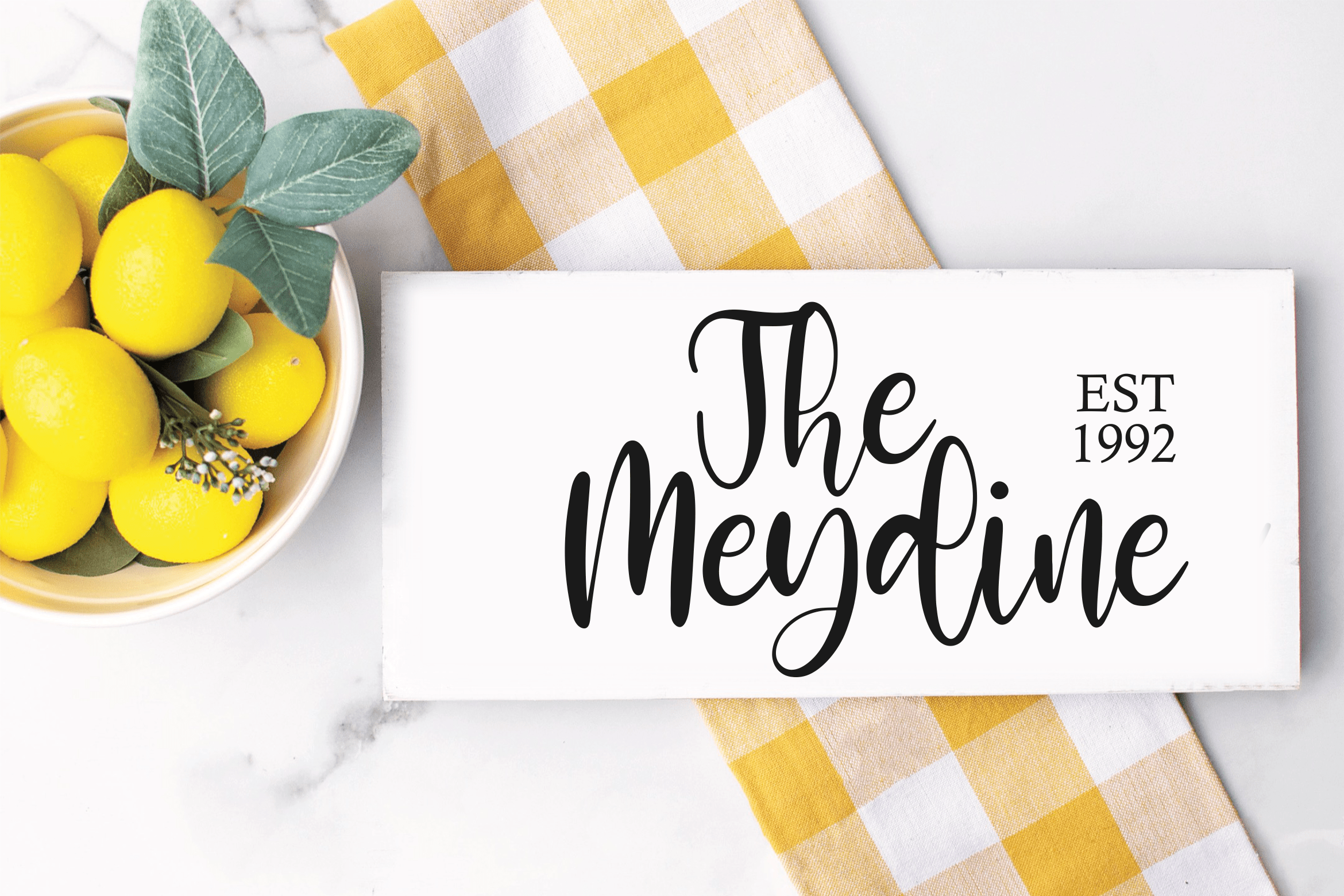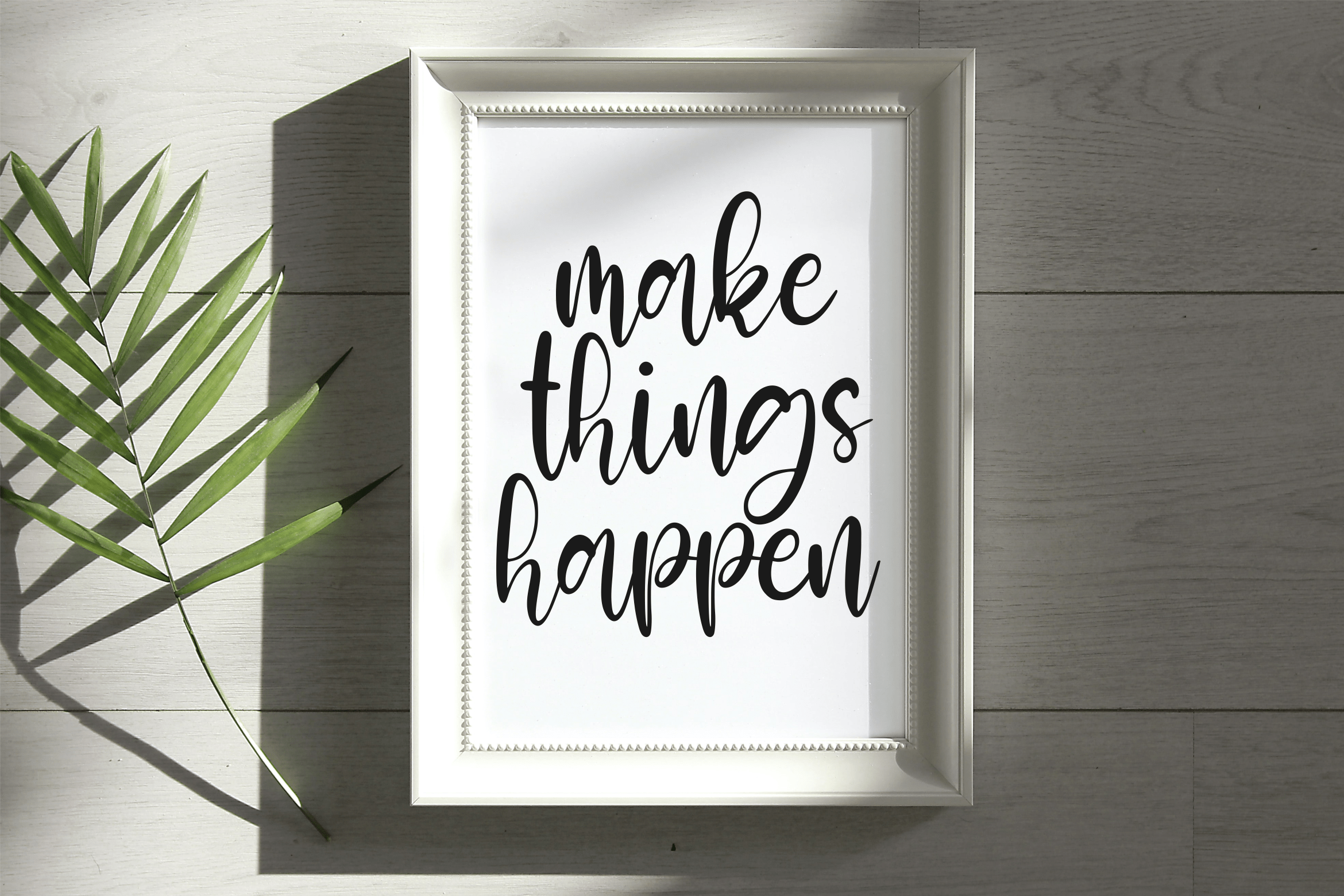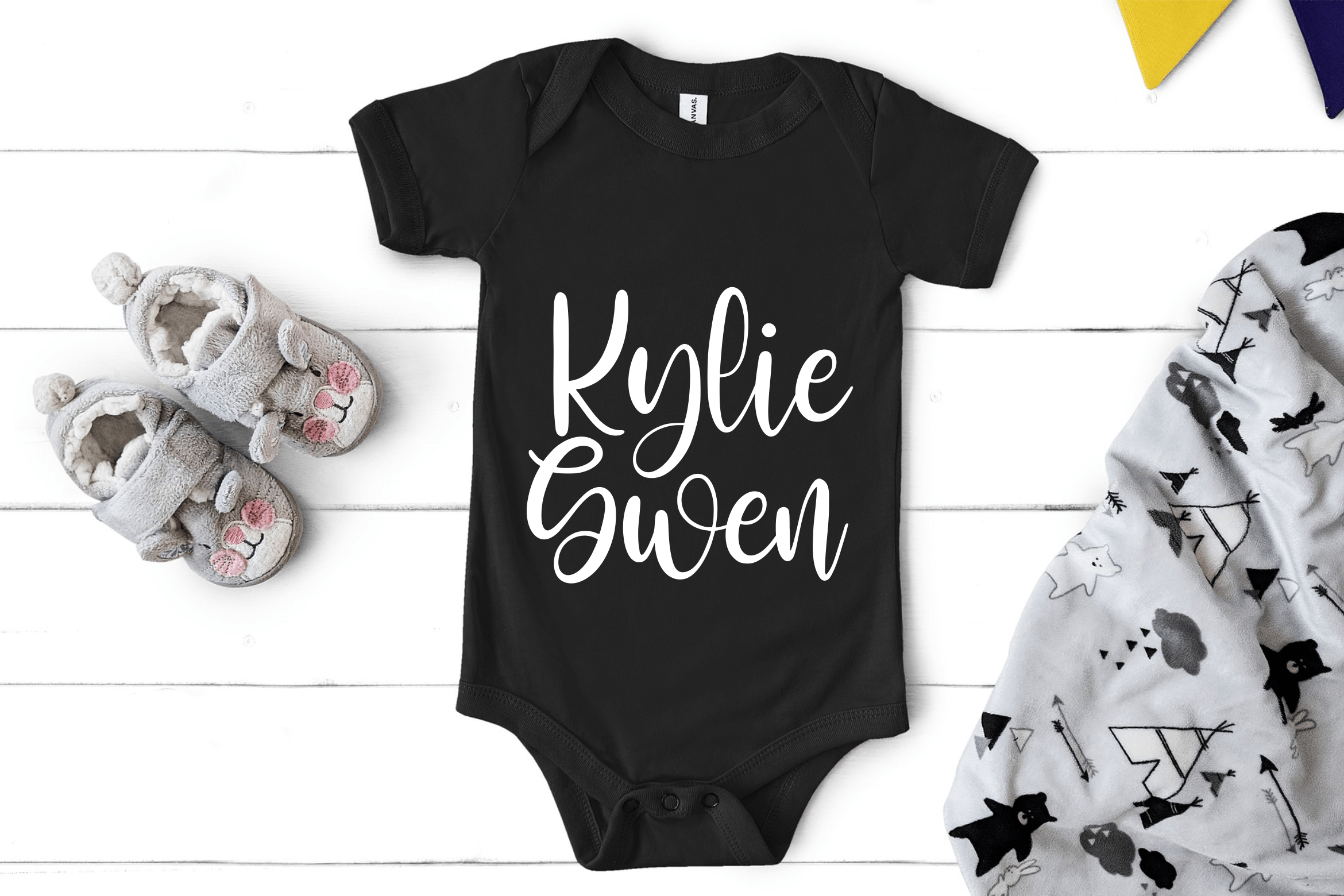
Fancywel Font
Fancywel Script Font
This is a lovely script font. It is perfect for product packaging, branding project, magazine, social media, wedding invitations, or just used to express words above the background. This font is PUA encoded which means you can access all of the glyphs and swashes with ease!